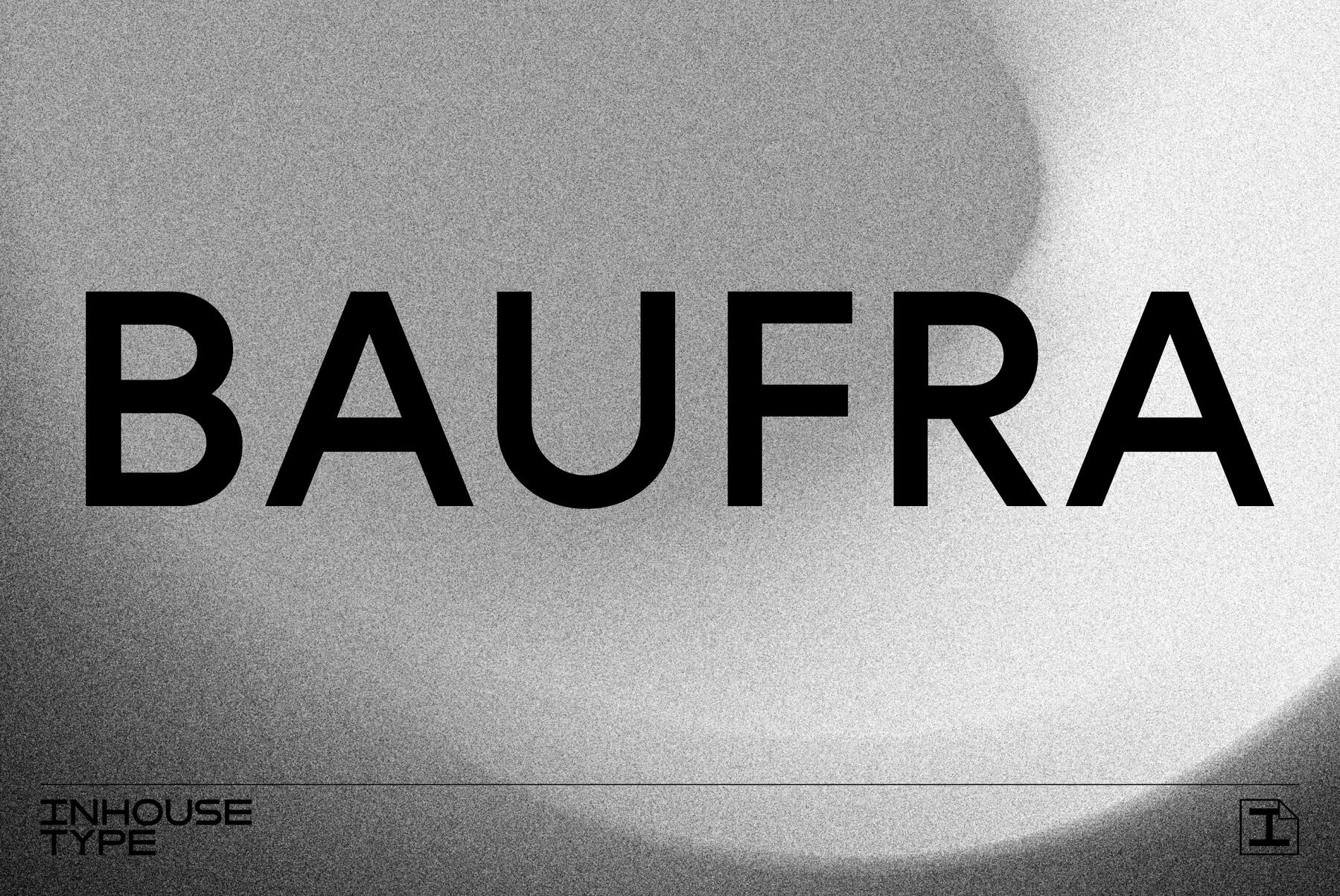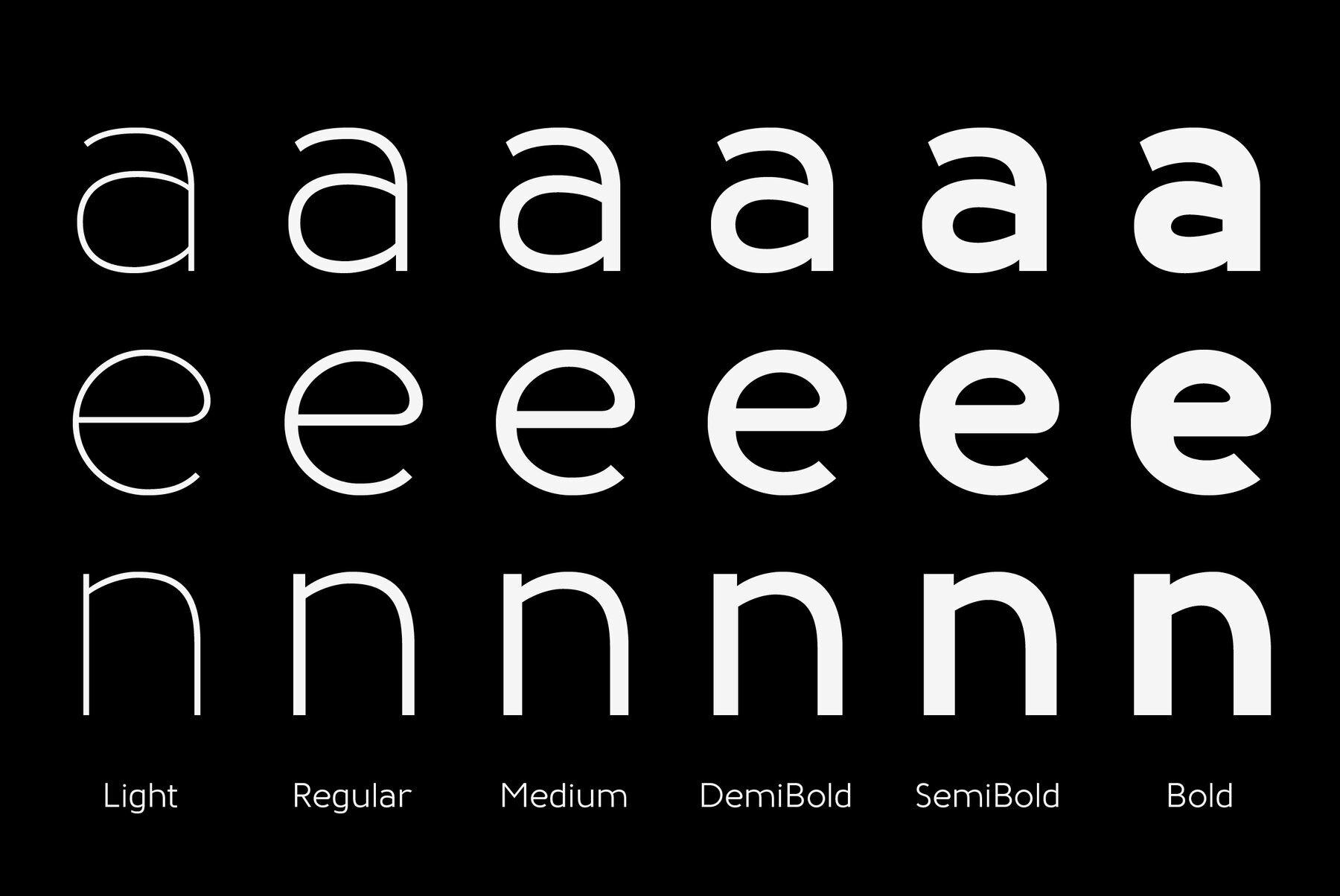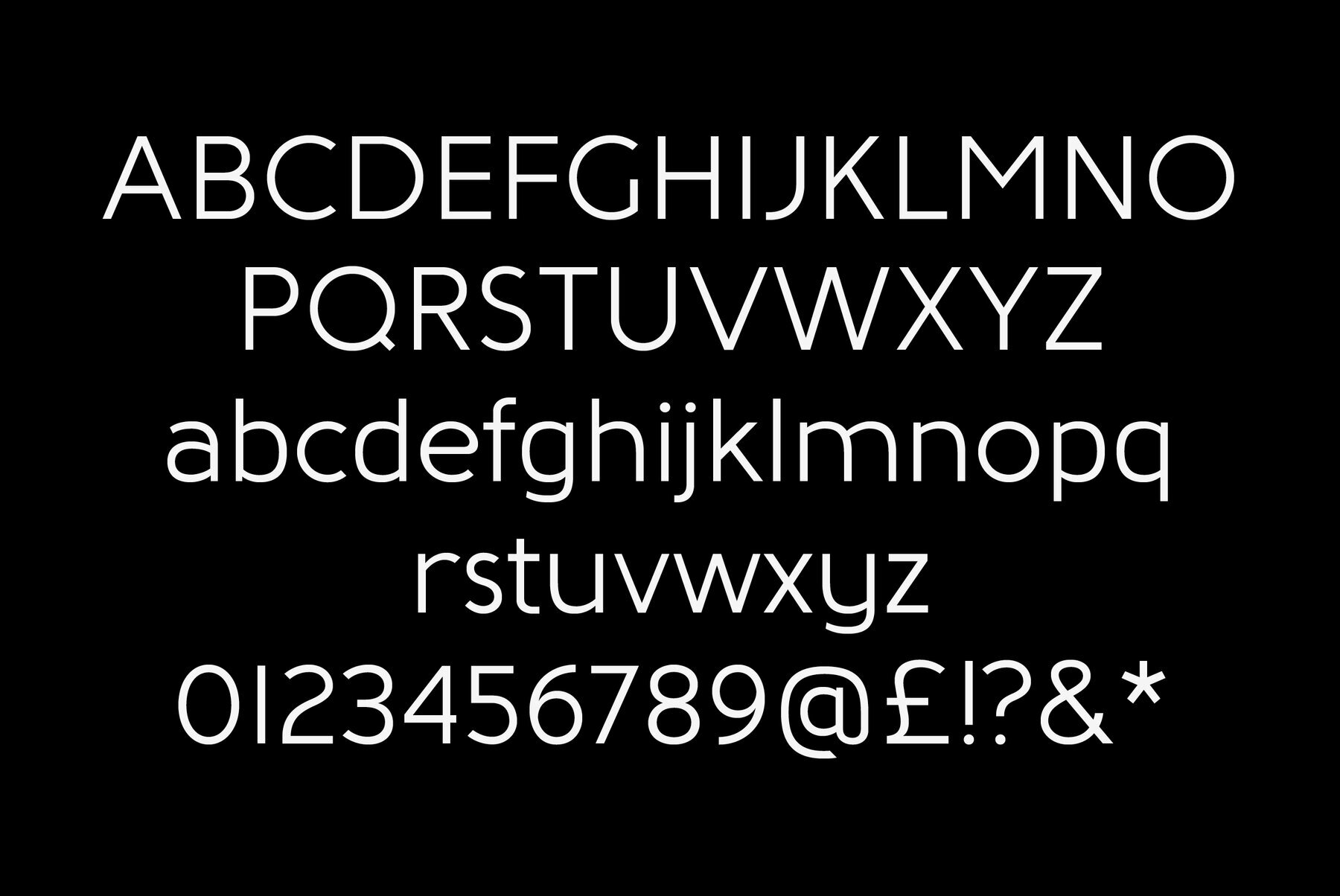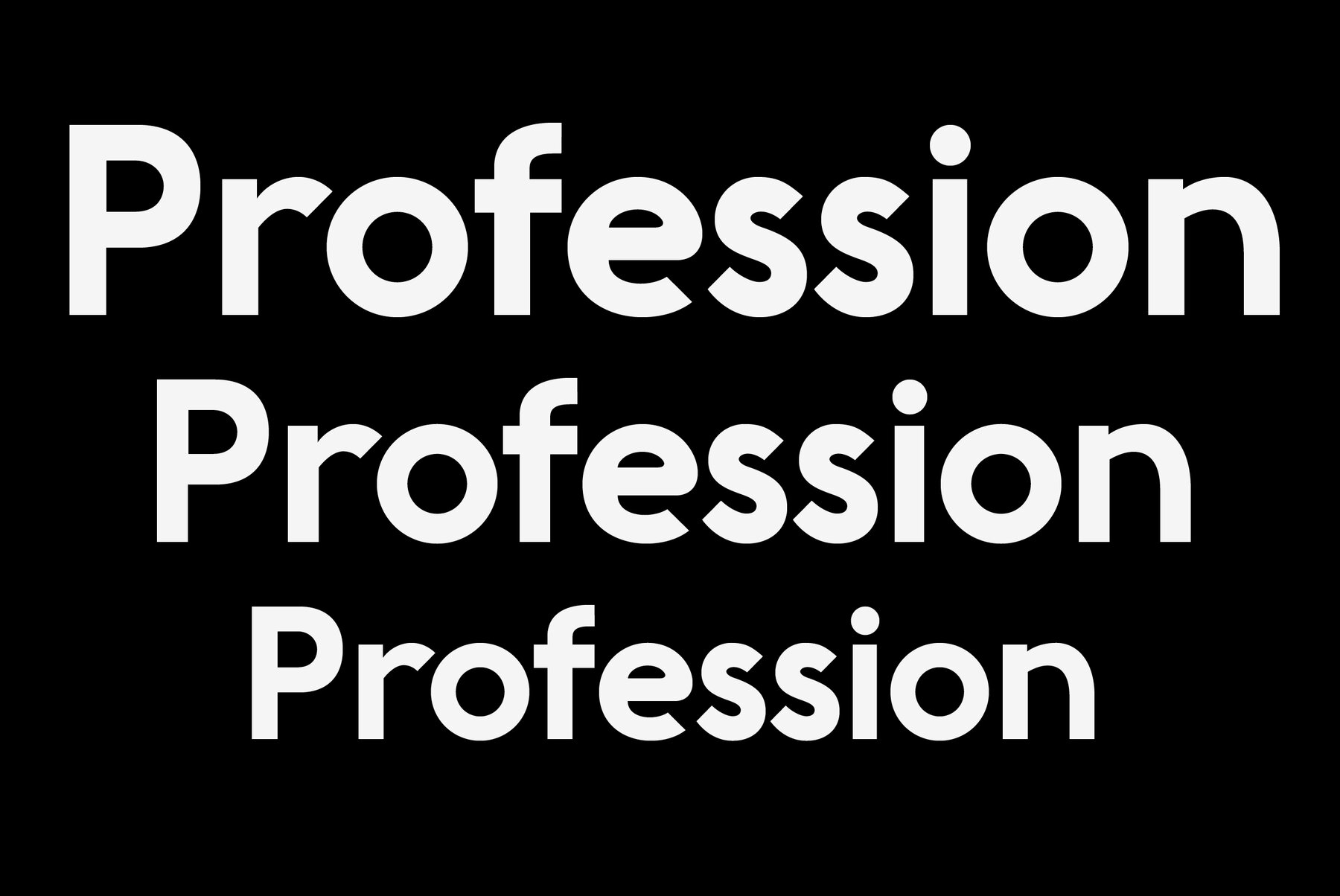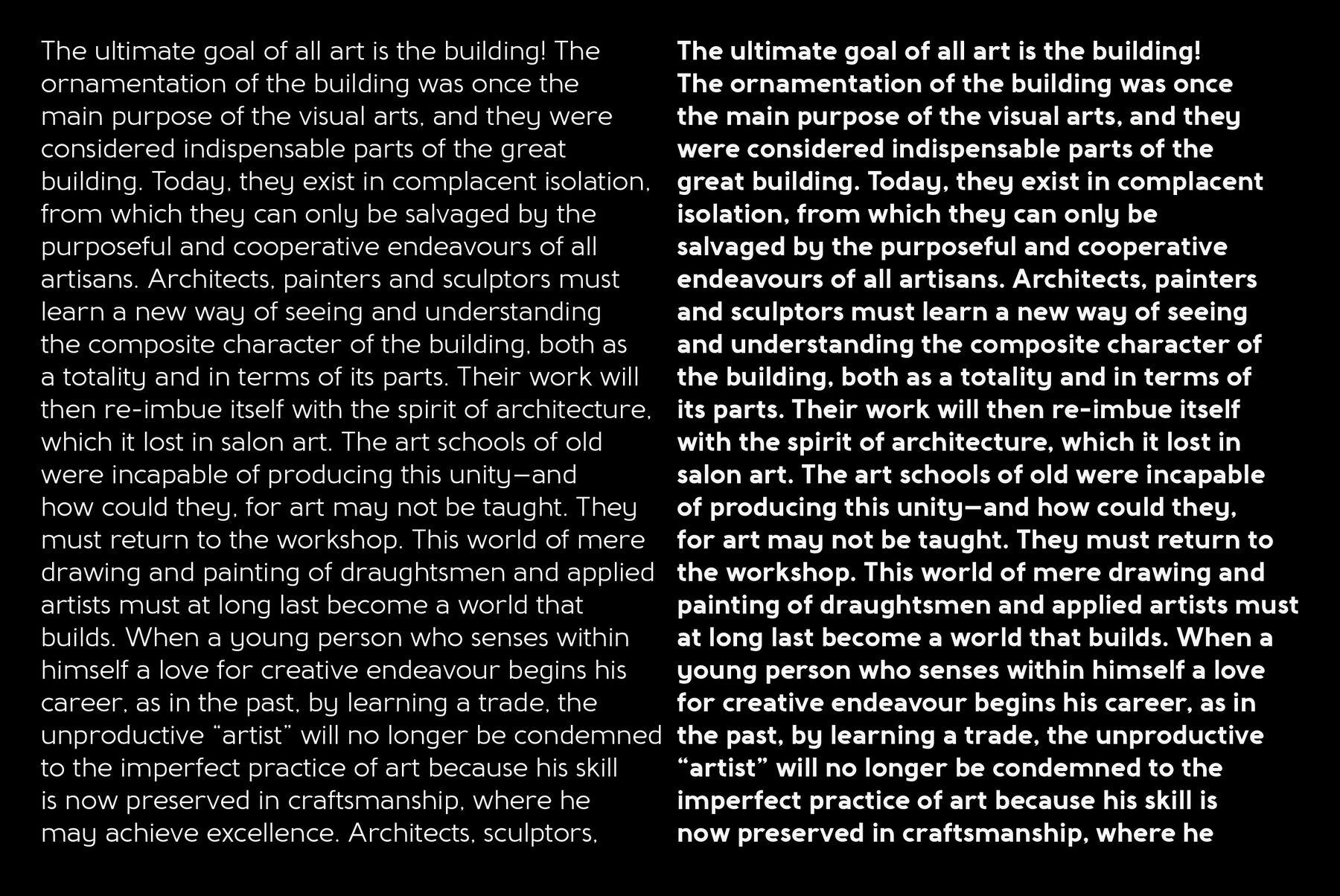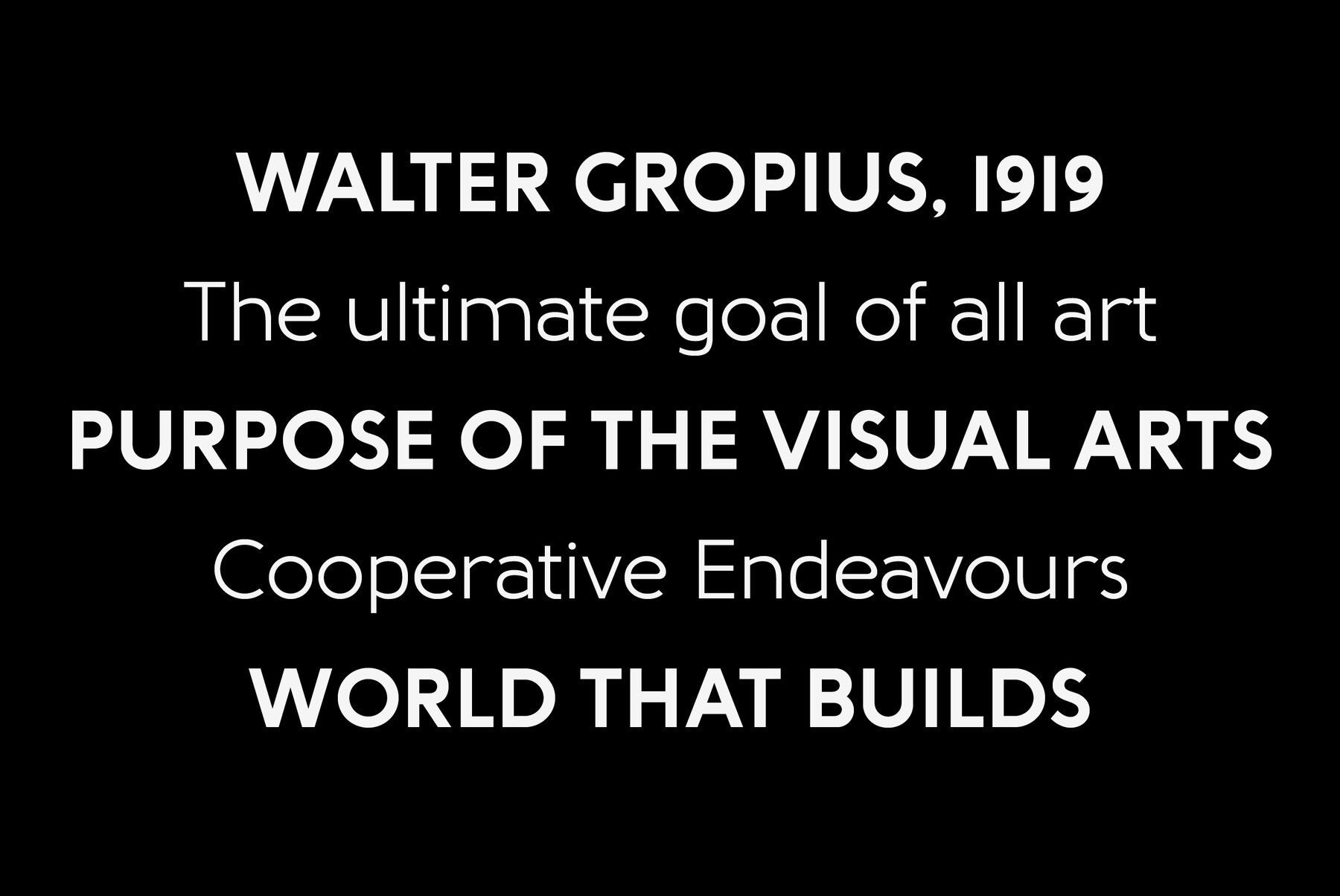
Baufra Font
Baufra is a humanist sans-serif typeface. It is based on the sans-serif typefaces of the early 20th century. A characteristic feature of Baufra is its geometric design combined with an earthy naturalism. Baufra family includes 6 weights, 435 characters, manually edited kerning and Opentype features. It was designed for both display and text usage.